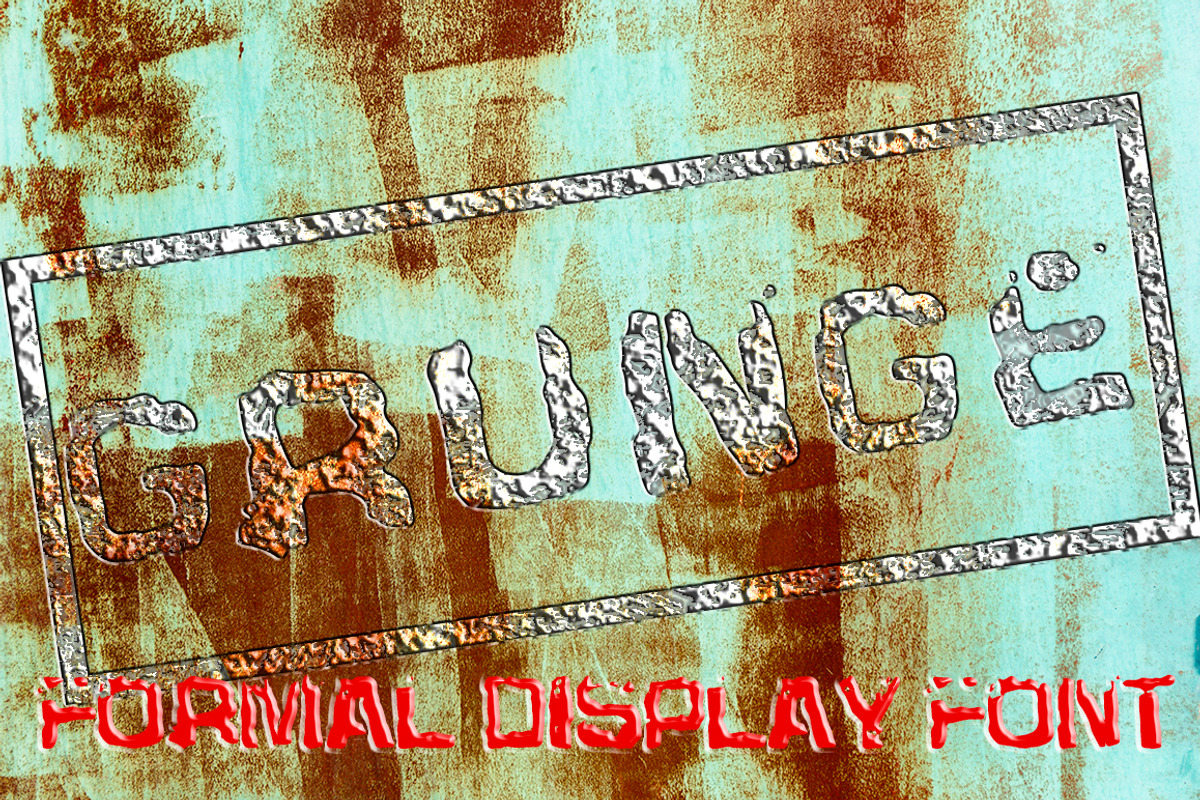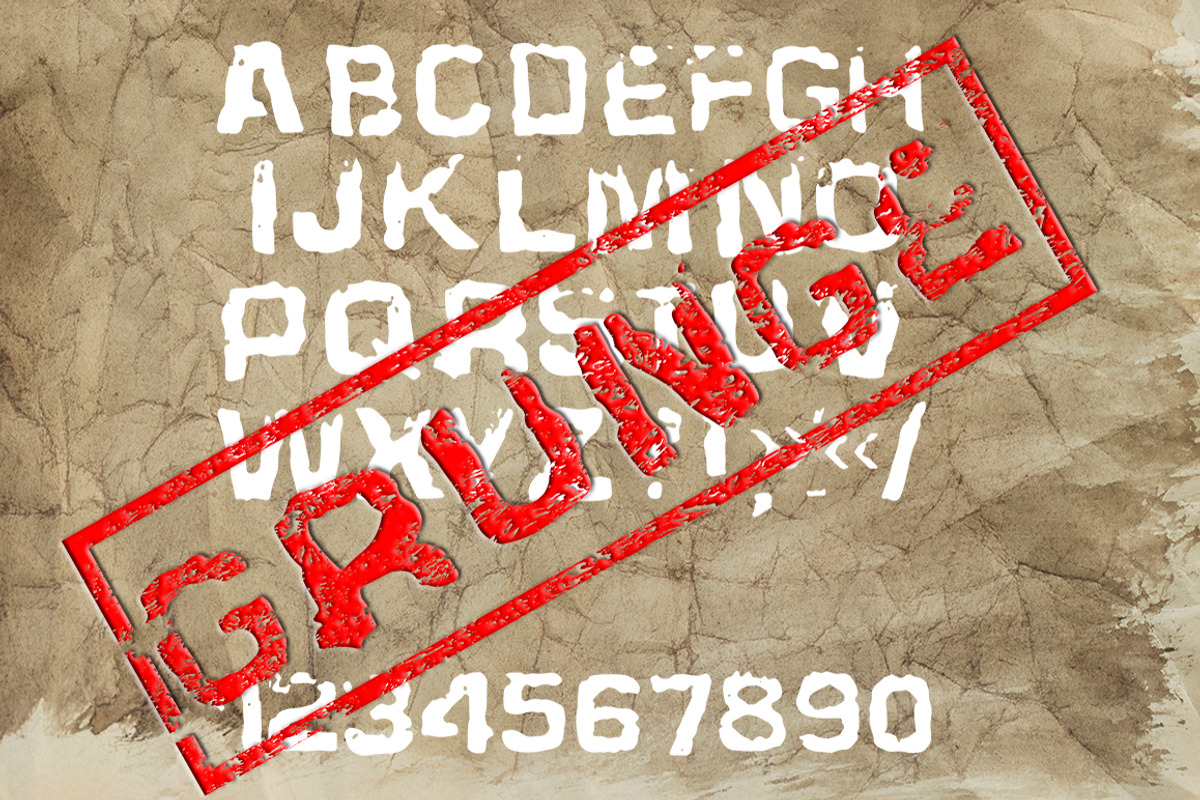
Grunge Display Formal Font
Grunge Display Formal Font by Ana Babii is a font selected for branding, posters, packaging, typography.
Why Grunge Display Formal Font is worth a look
Grunge Display Formal Font by Ana Babii fits naturally into Branding, posters, packaging, typography.